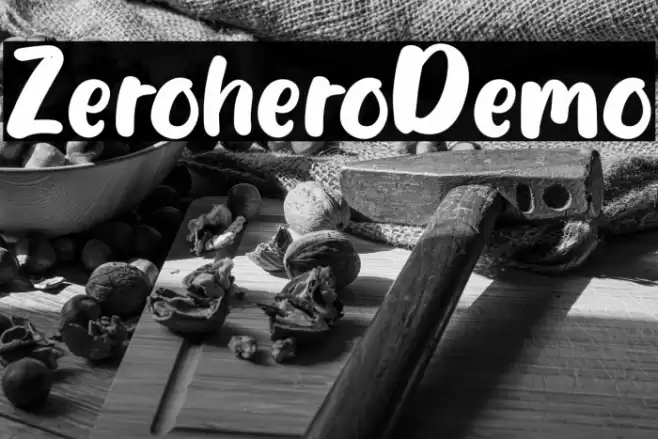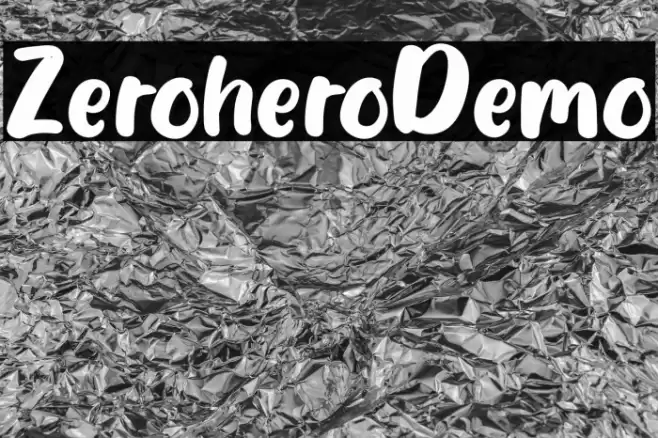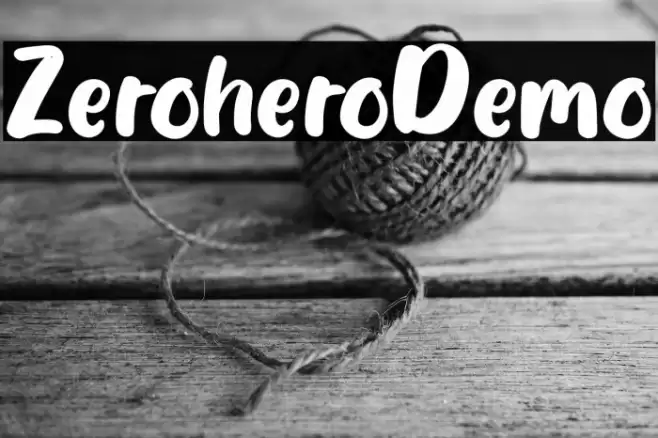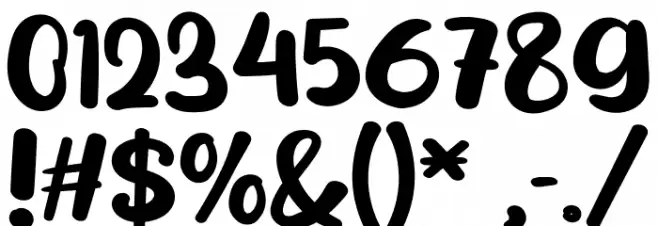
ZeroheroDemo Font
ZeroheroDemo Description
This font features a bold, playful style with rounded edges and a handwritten feel. The characters are thick and have a consistent weight throughout, giving them a strong presence on the page. The uppercase and lowercase letters maintain a cohesive look, with smooth curves and a slightly informal appearance. Numbers and special characters are designed to match the overall style, ensuring a uniform look across different uses. The font's friendly and approachable design makes it suitable for a variety of creative projects.
A bold, playful handwritten font with rounded edges from Regular fonts.
- Proposed Projects: Ideal for children's books, playful branding, greeting cards, and social media graphics.
- Overall Style: Playful